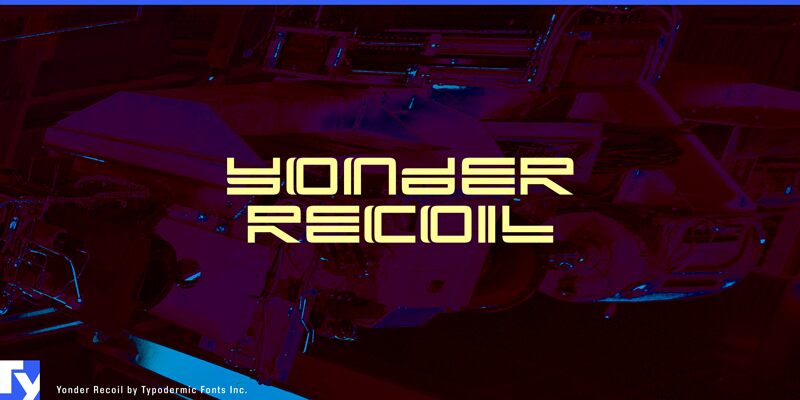
Yonder Recoil is a twin-line techno font I made in 1997. I recently redrew it with more precision and a more interesting vertical split on some letters.